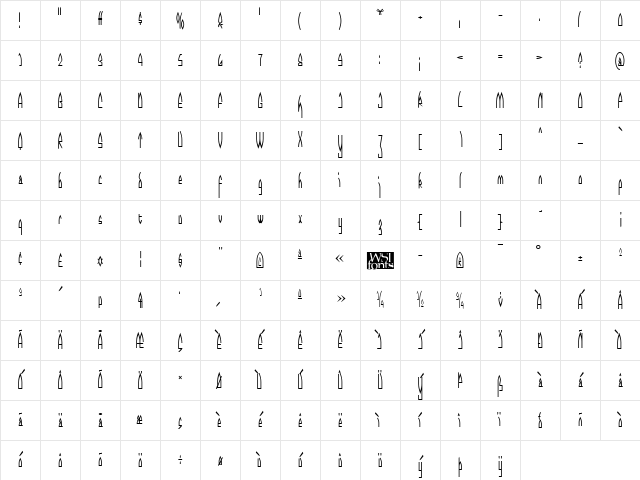
CathedralGothic Regular Free Font
CathedralGothic Regular
Design Context for CathedralGothic
CathedralGothic takes a clean, functional approach - its unadorned letterforms prioritise legibility and work reliably across screen and print environments.
Works well in signage, UI design, marketing materials, and anywhere clean functional typography is needed.
Font Pairing: Works well alongside a characterful serif or display font that can carry the expressive load while CathedralGothic handles the functional copy.
Pro Tip: Use CathedralGothic for UI labels, navigation, and short-form body copy where clean legibility is the priority.